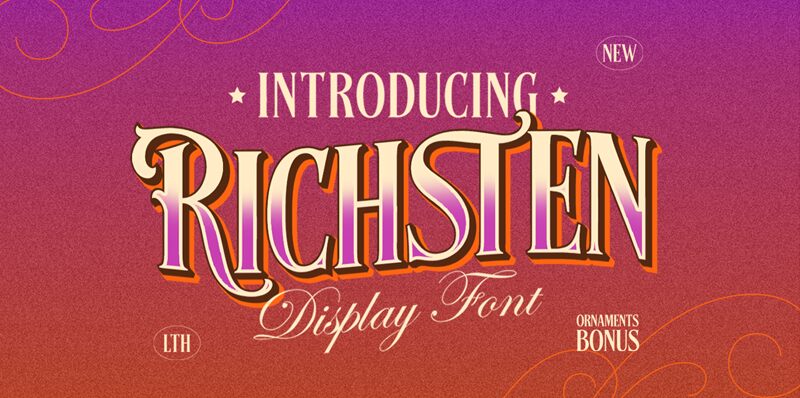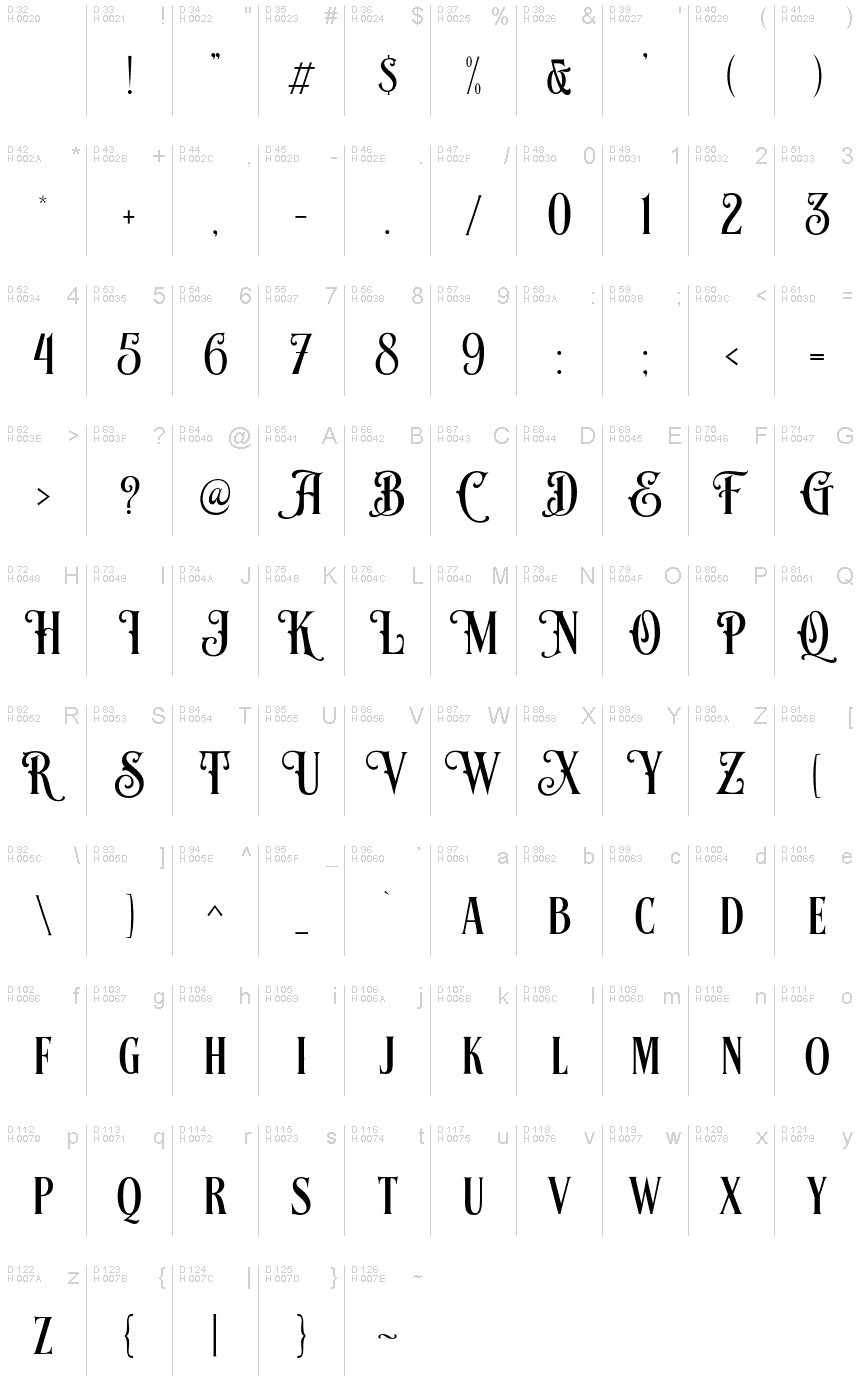
Richsten-Regular
The Richsten font by Letterhend Studio is a perfect fit for any vintage-inspired project. With its semi-light weight and condensed width, this serif typeface is both elegant and legible. Ideal for logos, branding materials, and editorial designs, the Richsten font exudes sophistication with its timeless style. The vintage charm of this font is perfect for fashion labels, whiskey brands or any other product that wants to give off a classic vibe. Its sleek lines and clean edges make it versatile enough to use in modern designs as well. Bring your projects to life with the Richsten font!